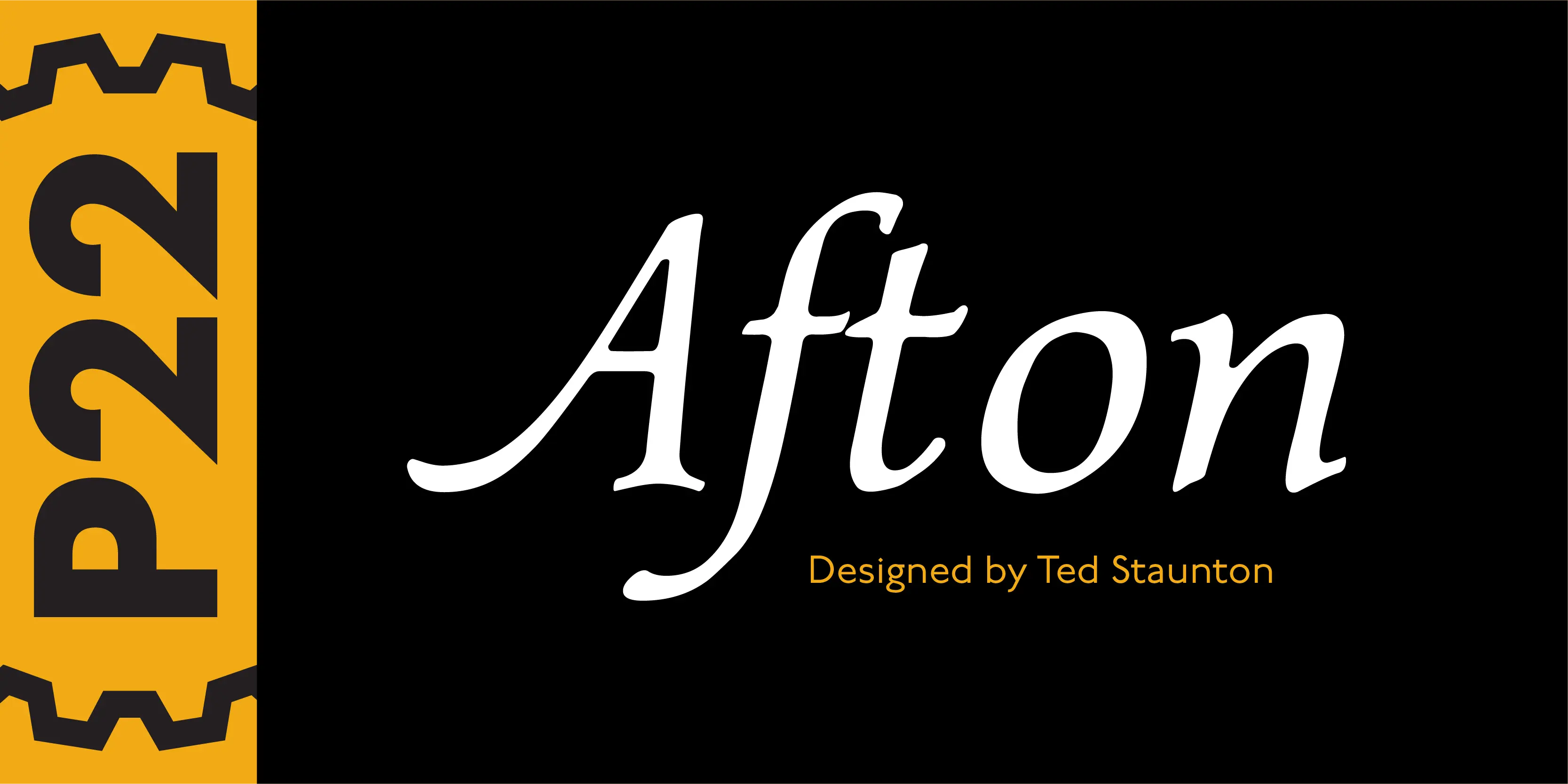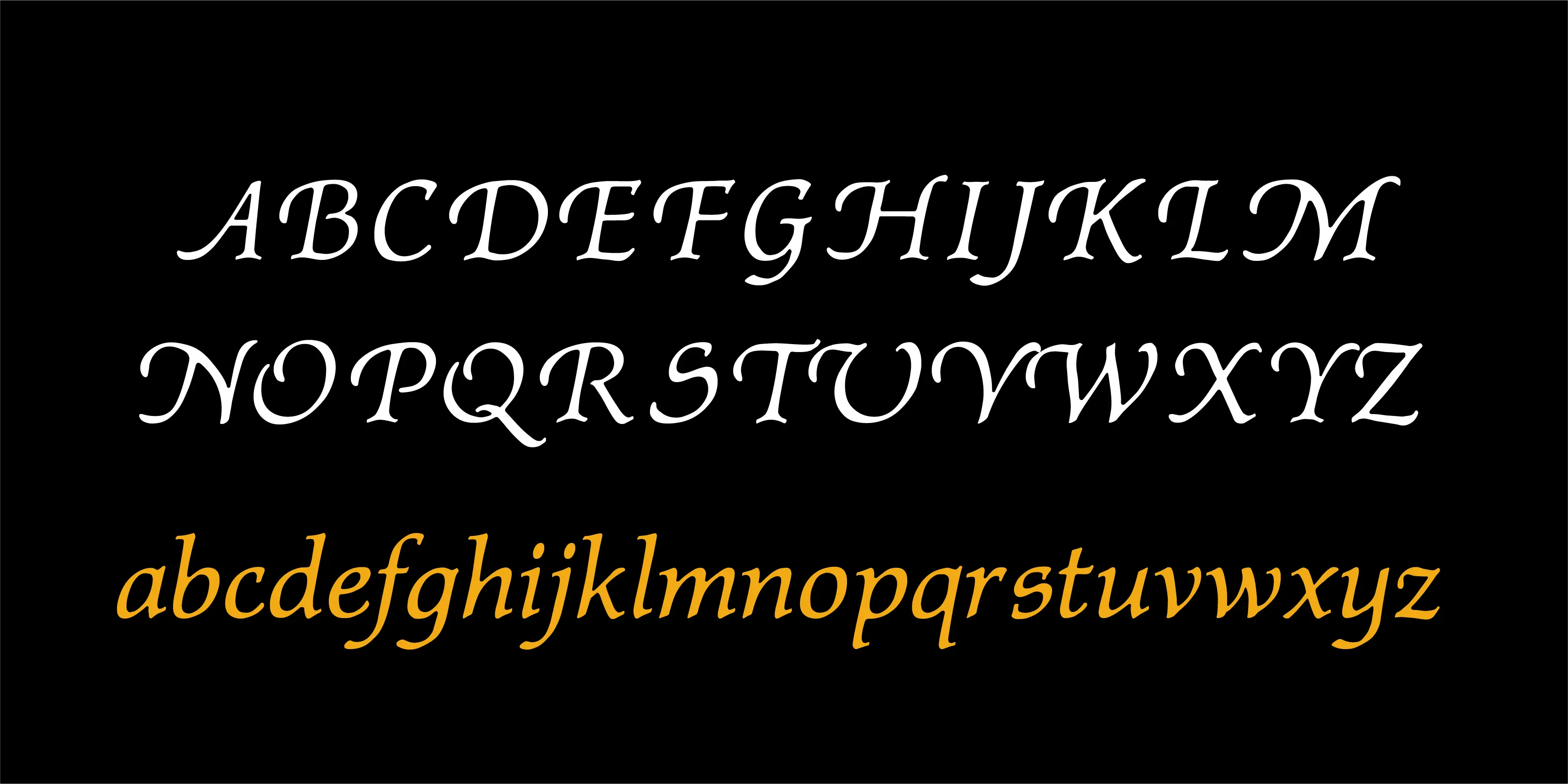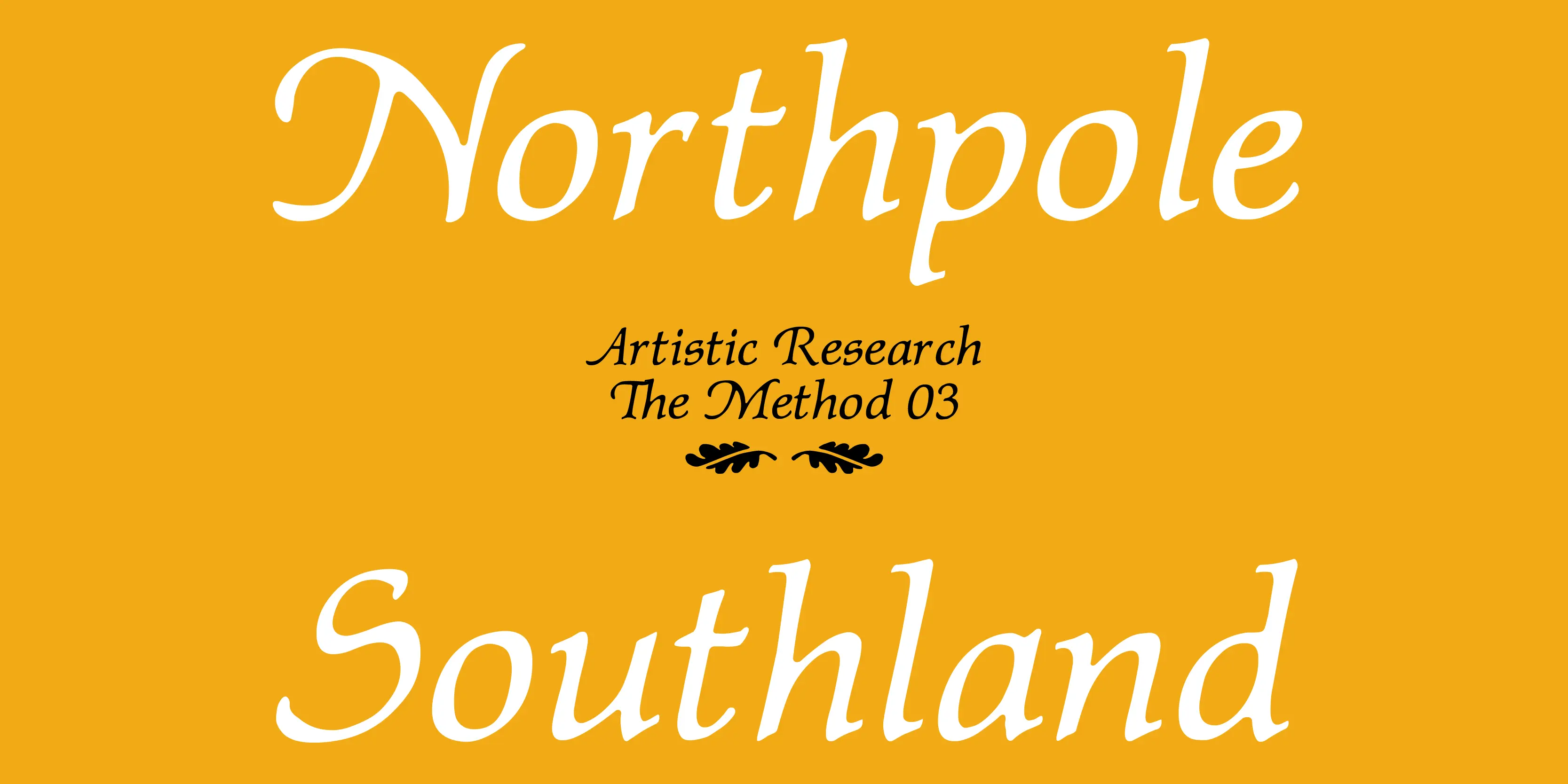
Afton Font
Afton
A cursive font with a curvilinear feel, named for the Scottish stream immortalized by the poet Robert Burns. Useful for menus, certificates, display lines, short paragraphs, or poetry settings.